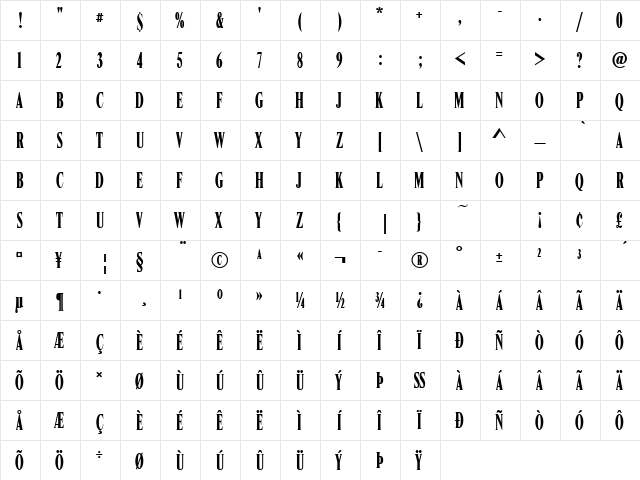
NimbusRomModComD Regular Font Preview
NimbusRomModComD Regular
NimbusRomModComD Regular Font Details
Design Context for NimbusRomModComD Typeface
NimbusRomModComD is a composed and adaptable typeface that performs quietly and consistently across a wide range of design contexts.